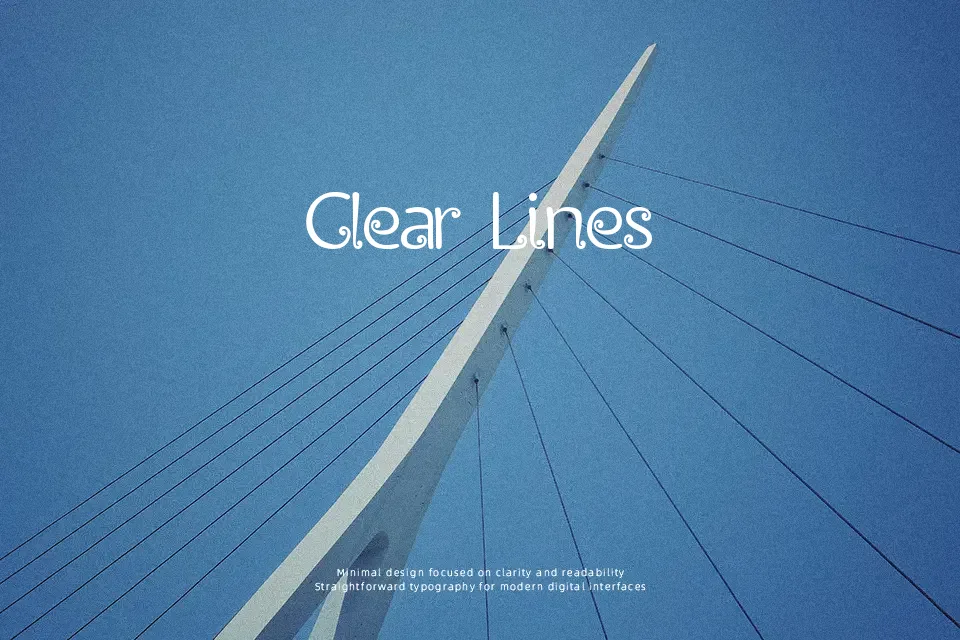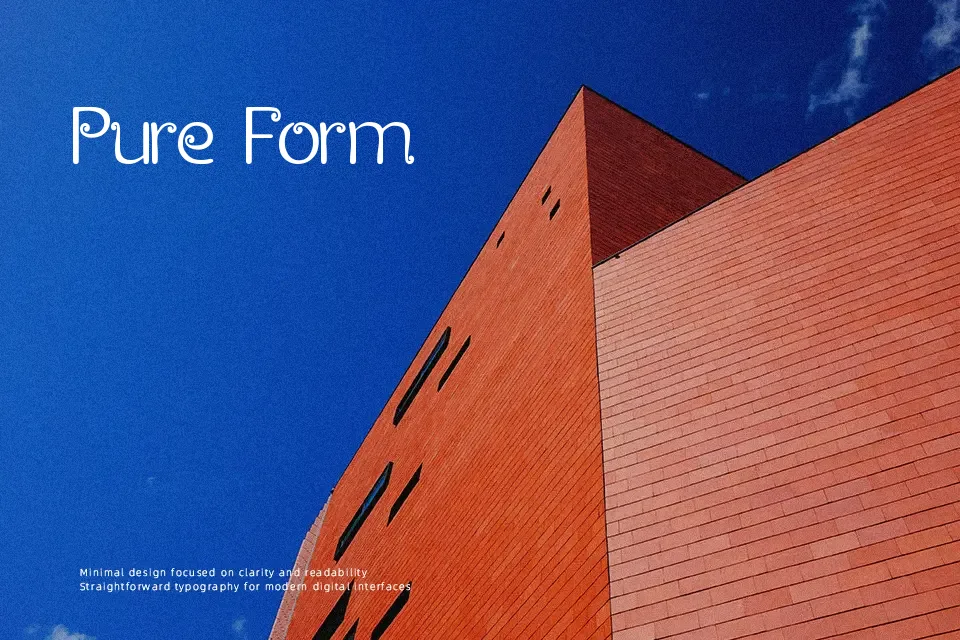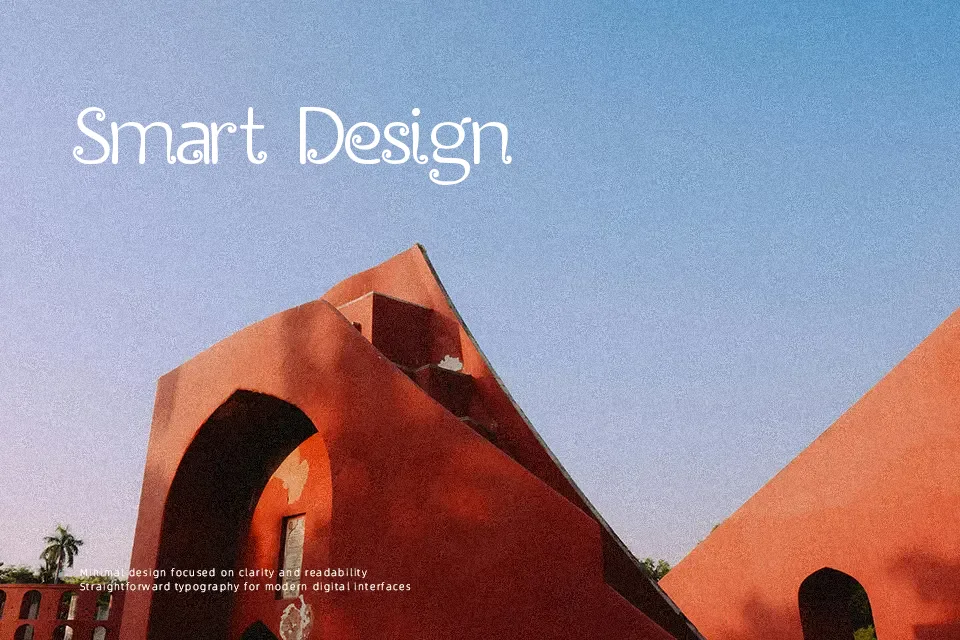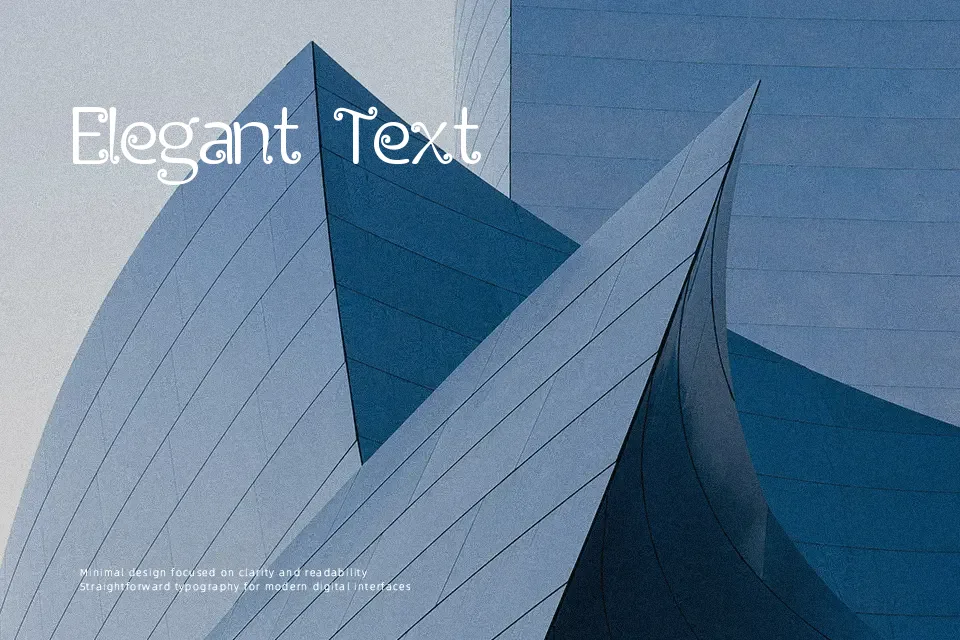
Cirkus Font
Featuring spiral terminals and energetic curved strokes, Cirkus Font presents an expressive display aesthetic tailored for cheerful creative projects. The letterforms show moderate stroke contrast balanced by rounded loop details, giving each glyph a distinct, animated silhouette. Generous character widths and open spacing help prevent the intricate swirls from tangling during headline presentation. While the typeface excels on carnival flyers, festival signage, and children book covers, decorative details become less effective at smaller sizes. The dense ornamental flourishes significantly reduce comfort during extended reading, making the design unsuitable for multi-line body copy.
Best For: carnival event posters,children party invitations,circus themed headlines,festival flyers
Not Ideal For: long body copy,dense editorial paragraphs,mobile app interface text,formal corporate documents
Perfect for headline, invitation, and kids, with a artistic and cartoon style.